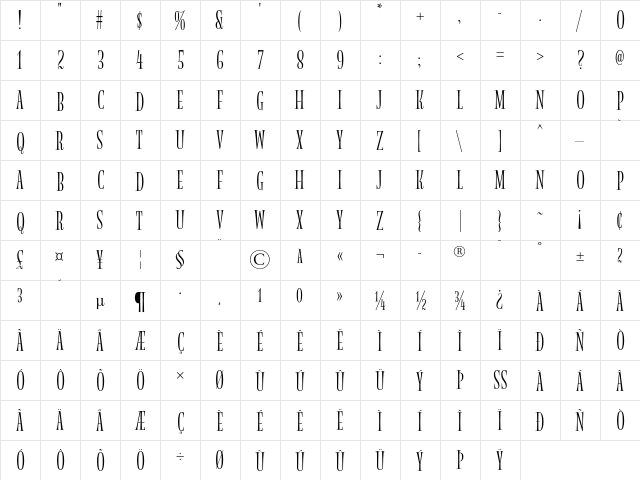
Magnolia MVB Regular
Design Context for Magnolia MVB Typeface
Magnolia MVB offers clean, dependable letterforms without strong stylistic allegiance, making it a practical choice for designers who need flexibility.